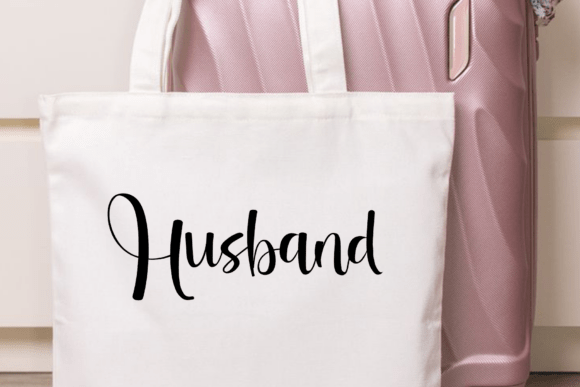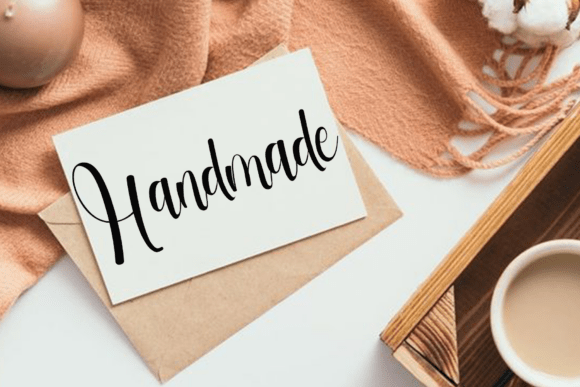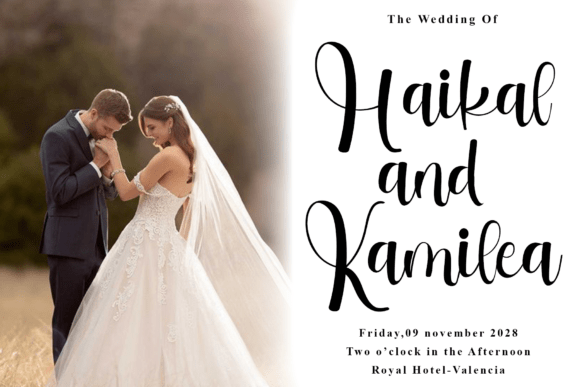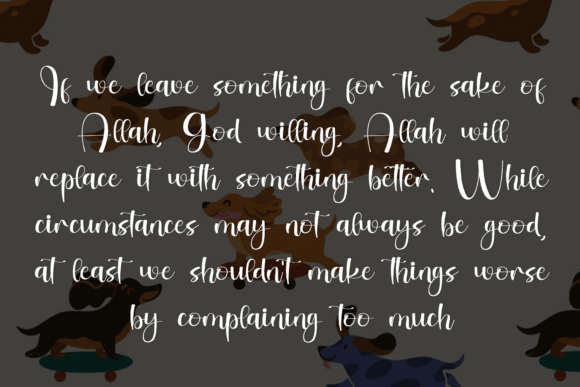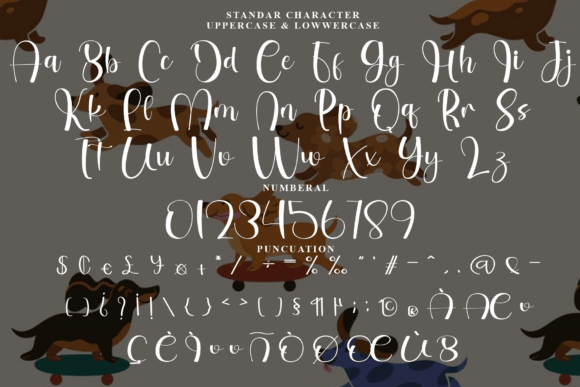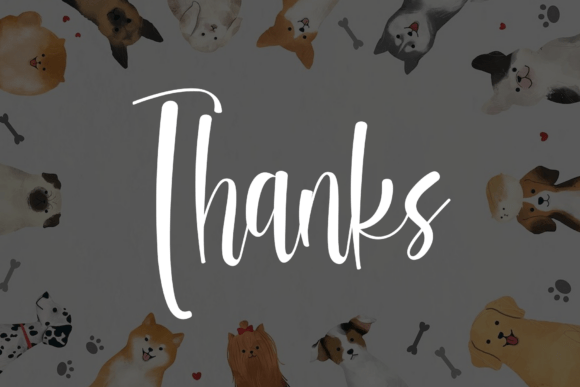
Introduction to Dachshund Font
Don’t let the name fool you—Dachshund is a sophisticated modern handwritten font that brings a sleek, elongated grace to your designs.
With its tall ascenders and smooth, rhythmic flow, it captures a “boutique” aesthetic that is both unique and professional It’s the perfect choice for creators who want a personal touch that still feels high-end and polished.
Key Features of Dachshund Font
Why Choose Dachshund Font?
Dachshund Font offers exceptional quality and versatility, making it a valuable addition to your design toolkit. Whether you’re creating for personal projects or commercial use, Dachshund Font delivers professional results.